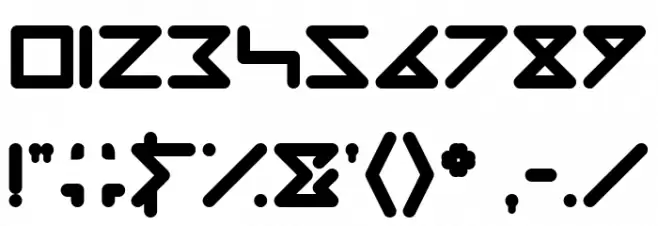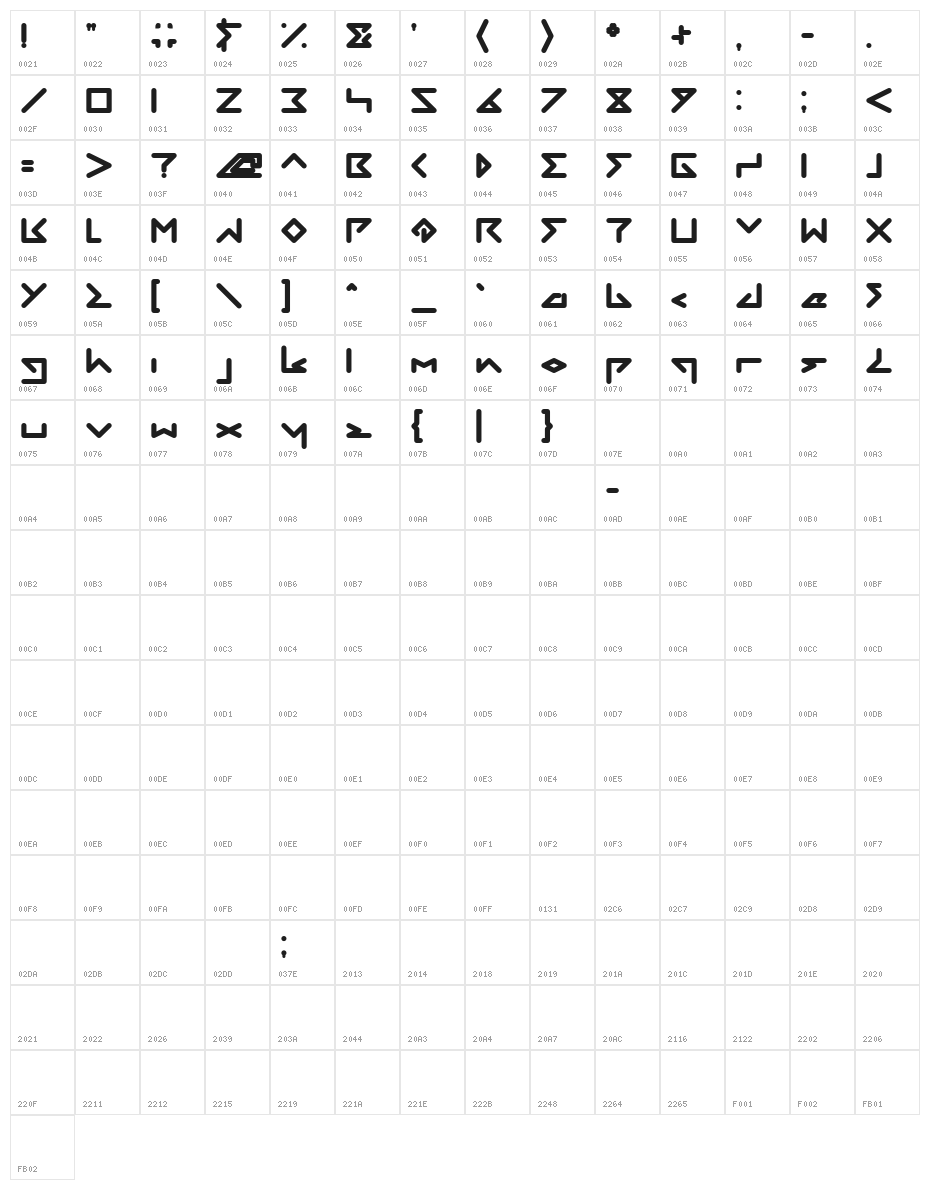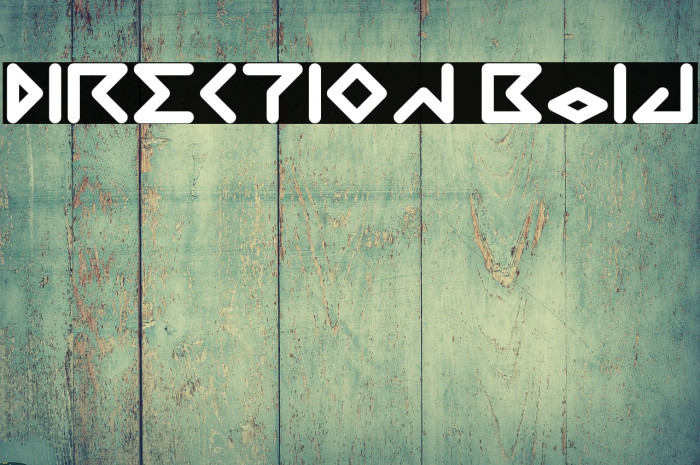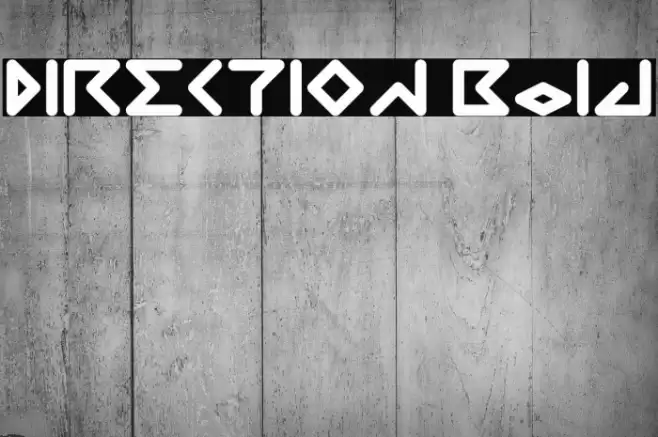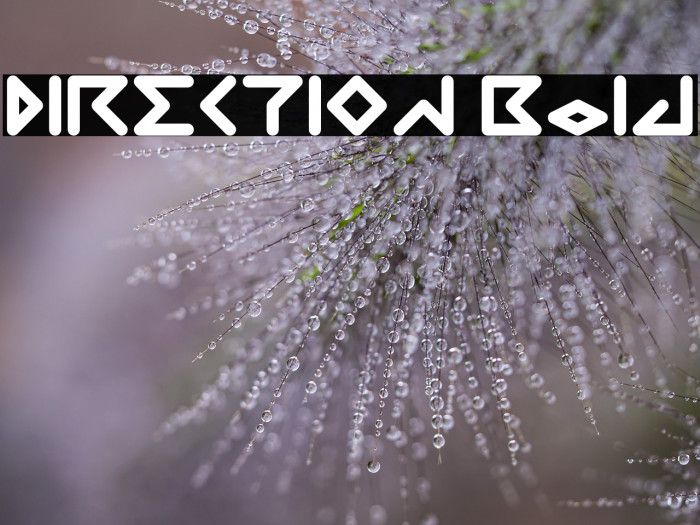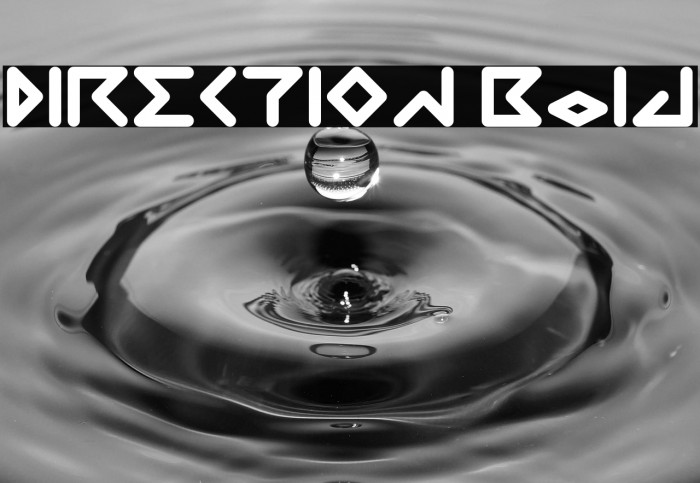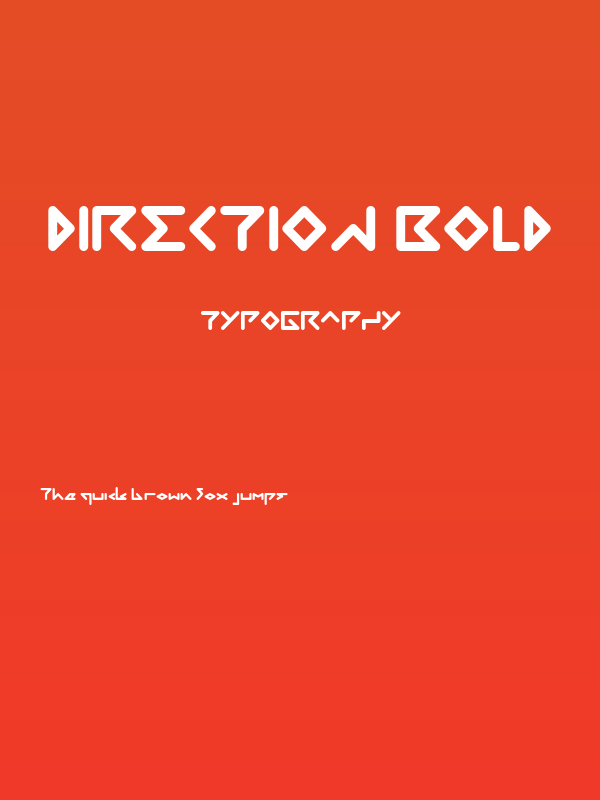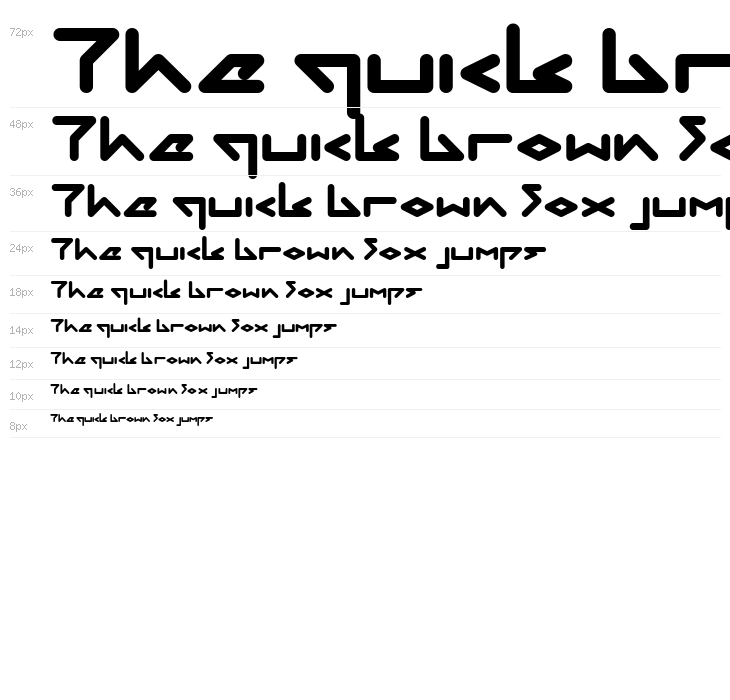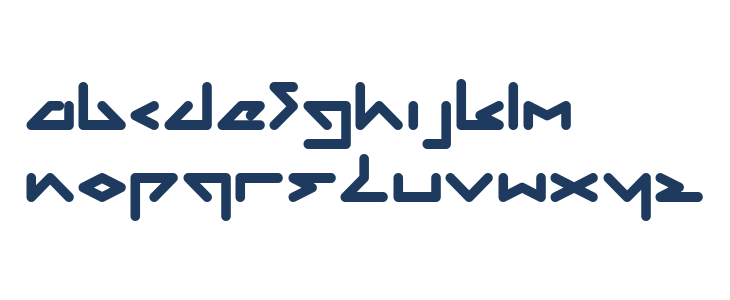
DIRECTION Bold Font
DIRECTION Bold Description
This font features a bold, geometric design with angular shapes and a futuristic aesthetic. The characters are constructed with thick, uniform strokes, creating a strong visual impact. The uppercase and lowercase letters maintain a consistent style, with sharp angles and a modern, tech-inspired look. Numbers and special characters follow the same design principles, ensuring a cohesive appearance across all elements. The font's unique style makes it stand out, ideal for projects that require a distinctive, contemporary feel.